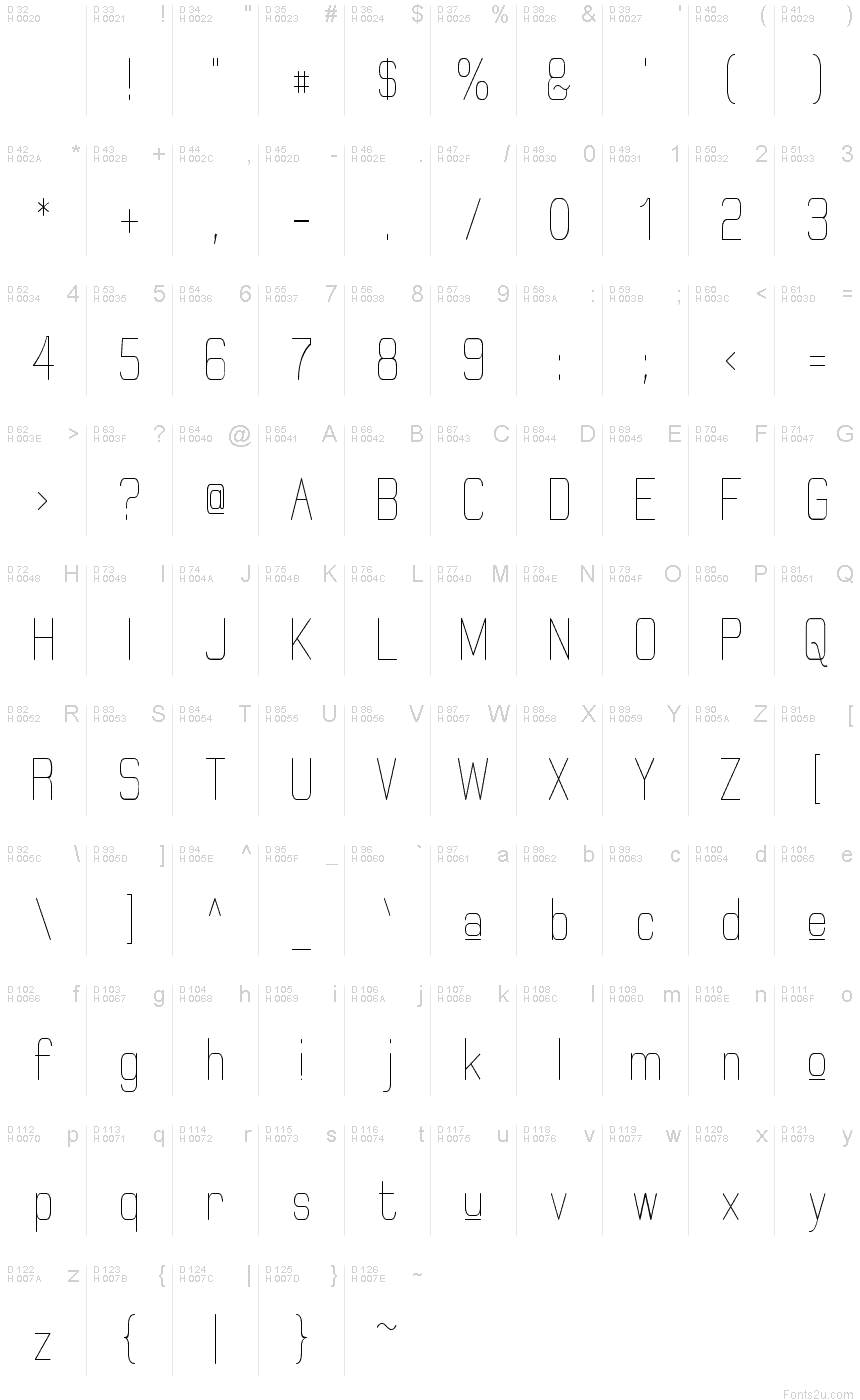
Elgethy Upper Condensed by Graham Meade is a free condensed geometric sans serif drawn with exceptionally fine, even strokes and tall, narrow letterforms. Soft rectangular curves keep the lettering calm and architectural.
Fashion wordmarks are its strongest setting, especially for labels that favor restraint over ornament, and the same slender drawing also suits cosmetics packaging, gallery posters, and editorial covers with a refined modernist direction. In those settings, the elongated forms can become a recognizable brand signature rather than neutral labeling, with curved letters that echo slim bottles, frames, or linear illustration.